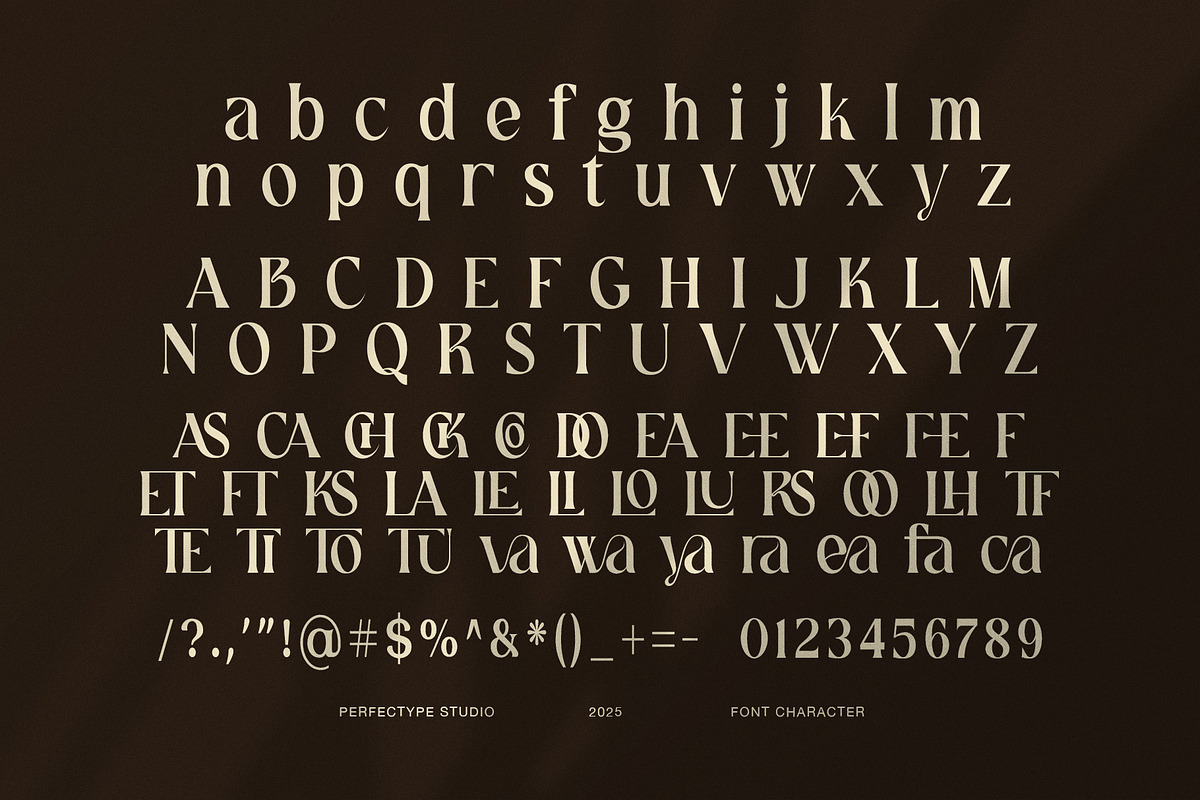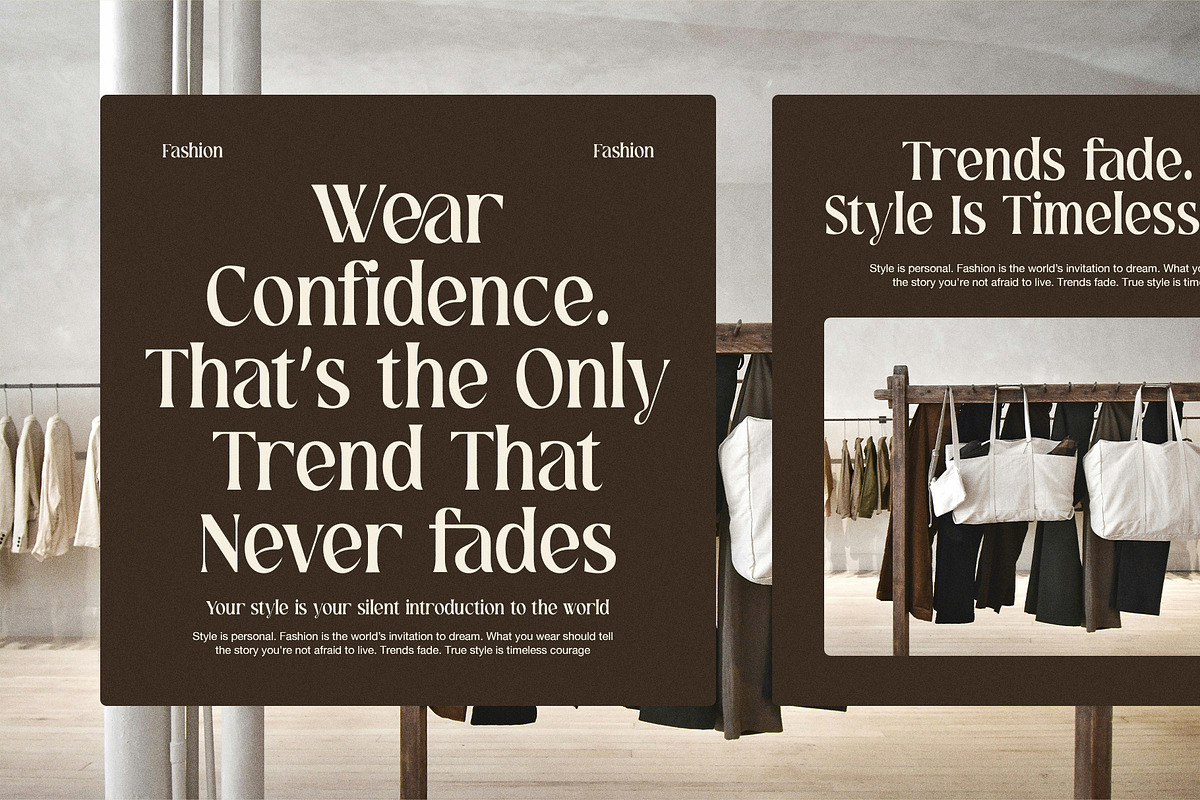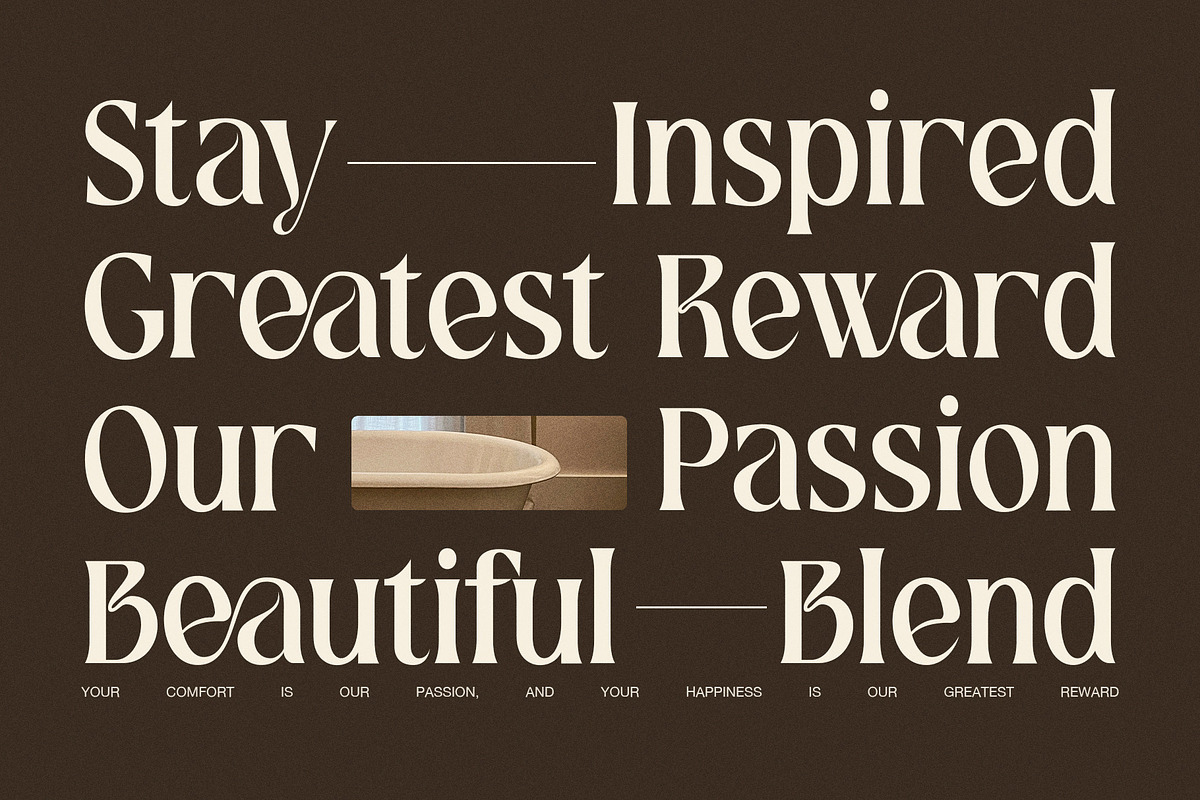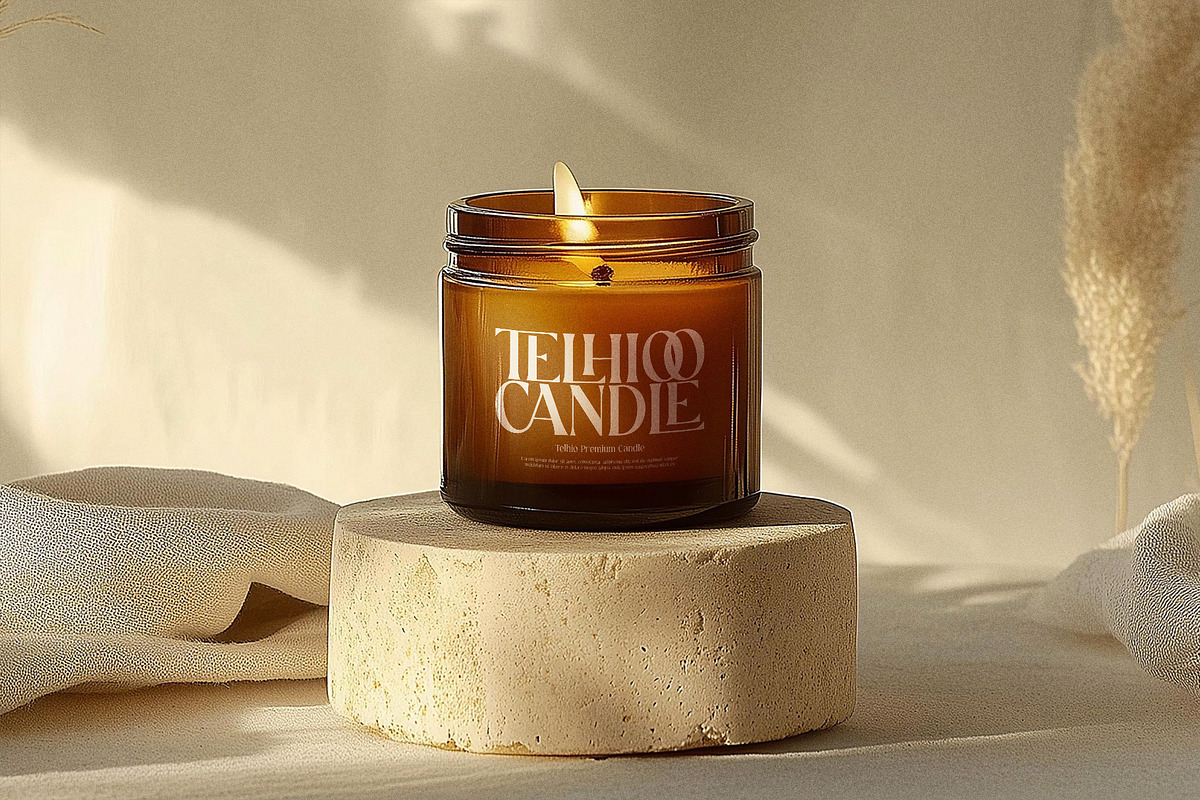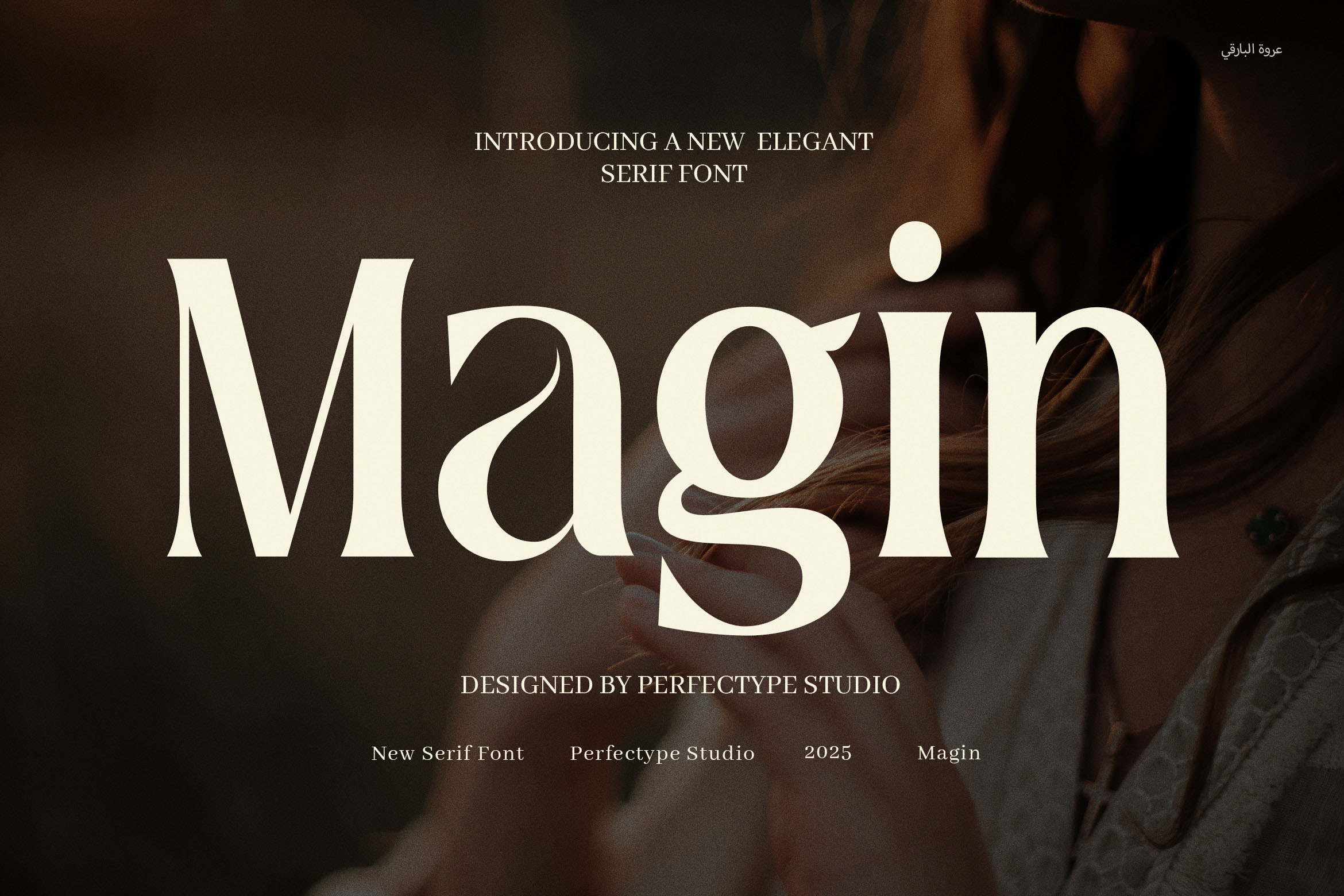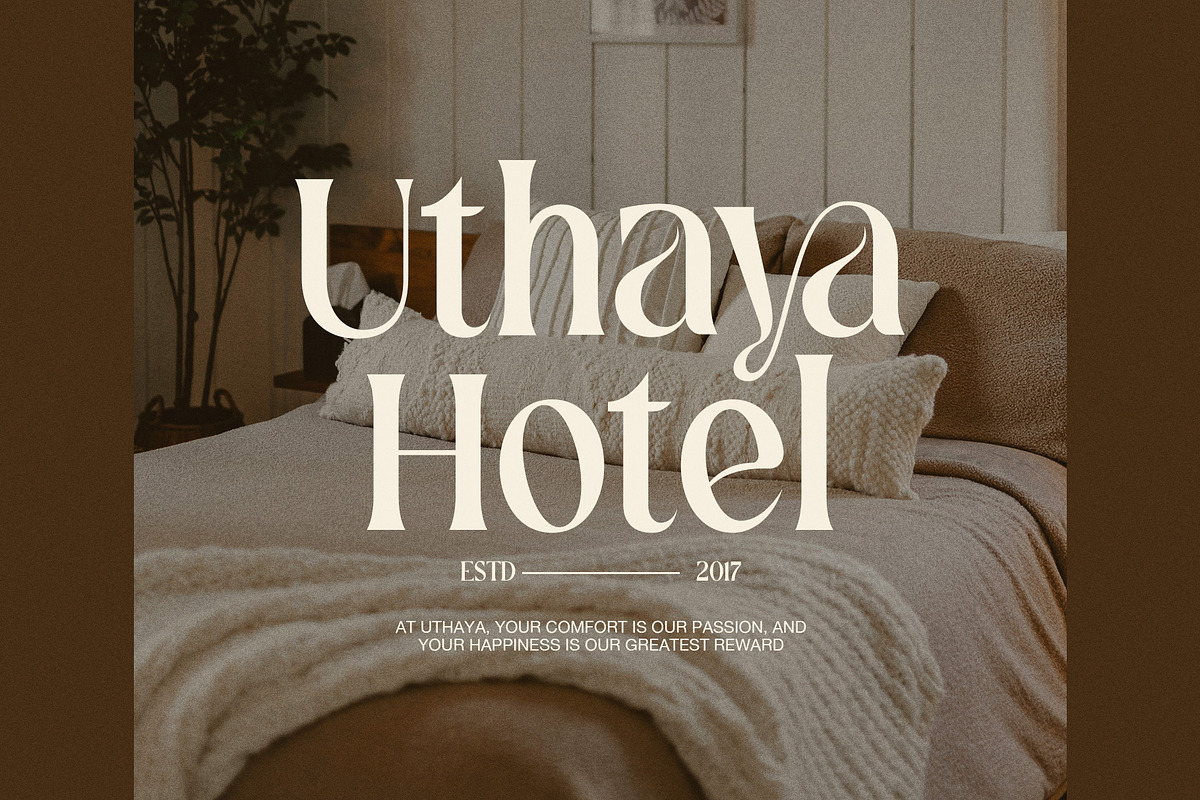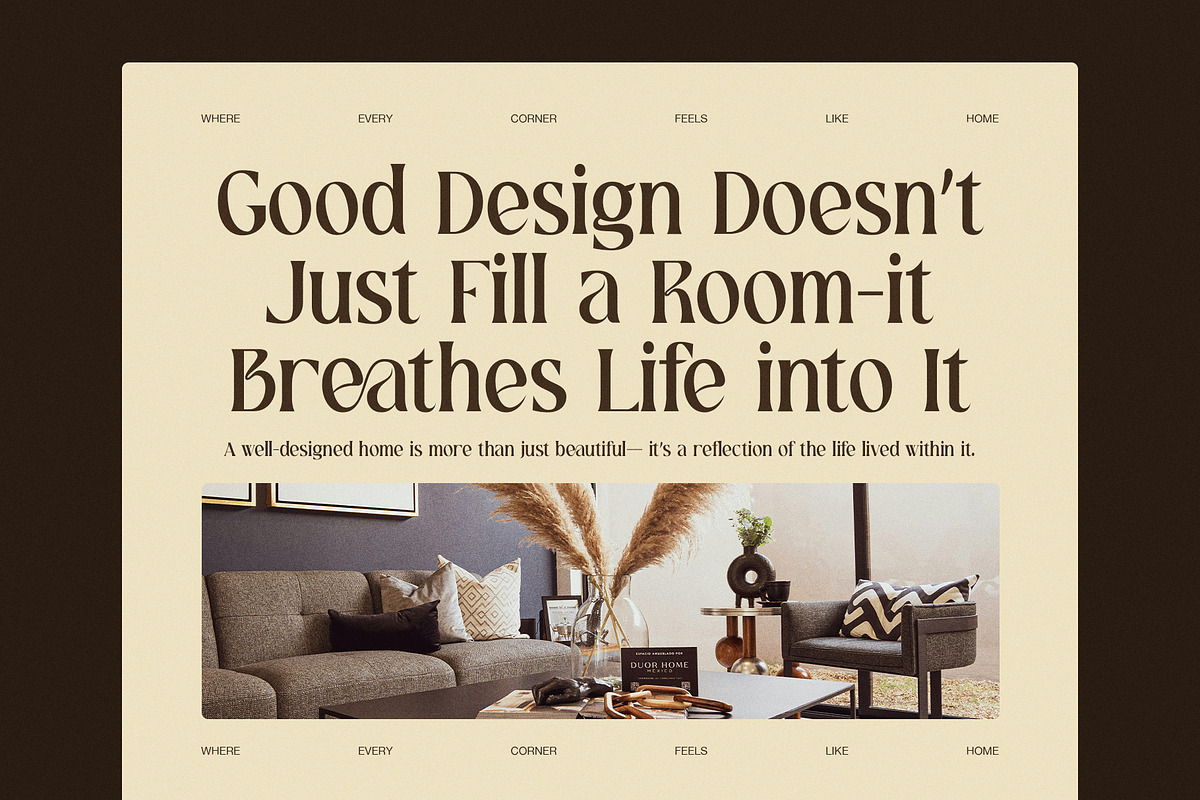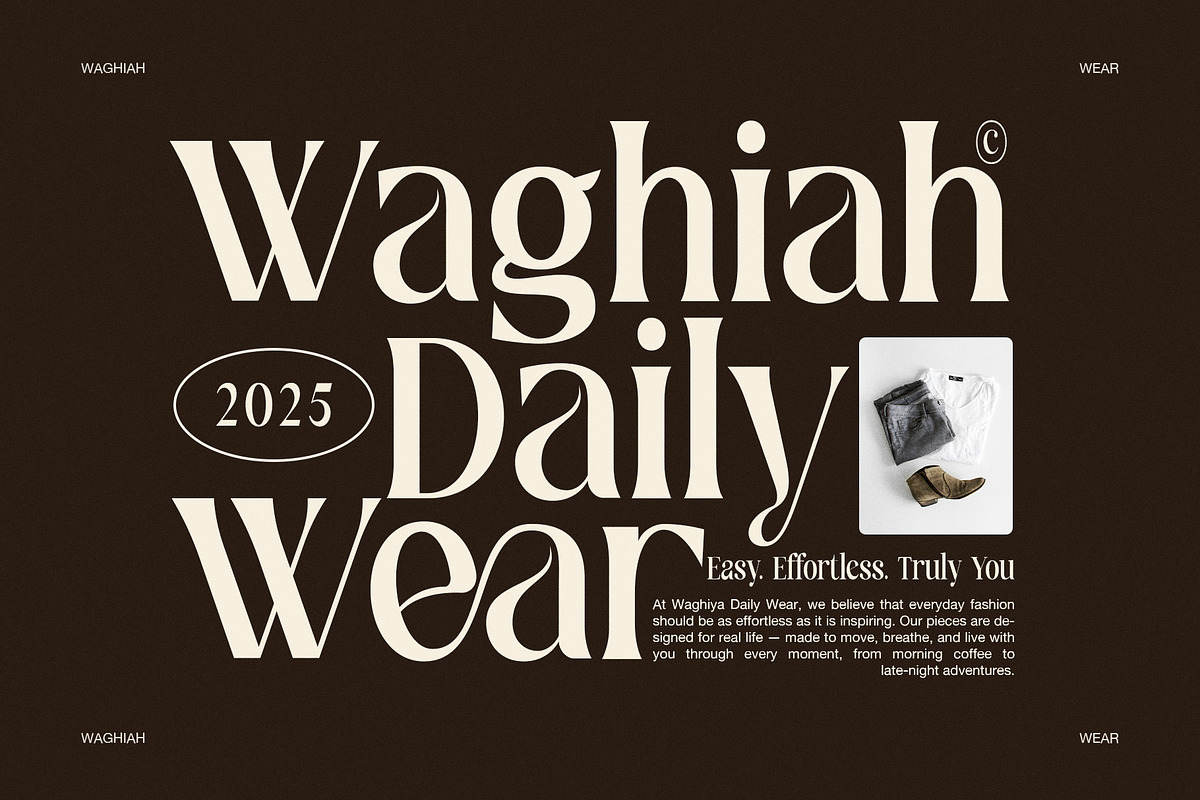
Magin Elegant Serif Font
Magin Elegant is a beautifully crafted modern serif font that combines timeless elegance with clean, contemporary design. Featuring well-balanced letterforms and proportional shapes, this font was created for designers who want to deliver a high-end, polished look across a wide range of branding needs.
Designed with care and precision, Magin Elegant includes smart ligatures that enhance the flow between letters, making every layout feel seamless and professional. Whether you're working on a corporate identity or creative product branding, this font will elevate your design effortlessly.
Perfect for both print and digital use, Magin Elegant is ideal for:
Logo design and signature branding
Website headers and UI elements
Magazines and editorial layouts
Product packaging and advertising
Luxury fashion, food, and boutique brands
Social media content and marketing campaigns
Why Choose Magin Elegant?
Stylish serif design with a luxury feel
Clean and proportional letterforms
Functional ligatures for added elegance
Easy to use across various platforms
Ideal for business, branding, and editorial
If you're aiming to make a bold yet elegant impression, Magin Elegant gives your designs the professional touch they deserve. It’s more than just a font—it’s a branding solution.